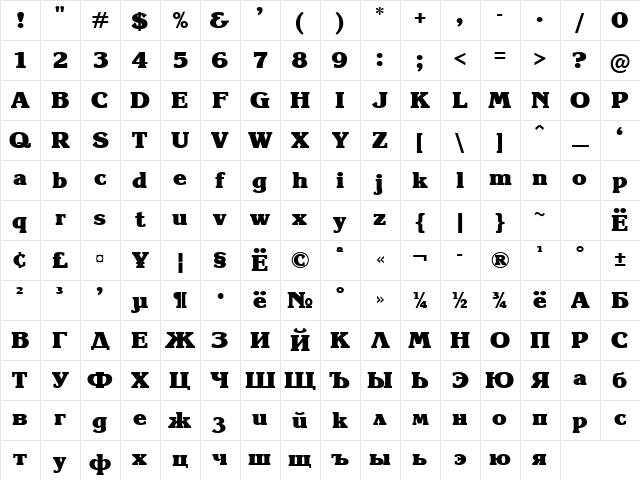
Complete Karelia Extra Bold glyph index. Displaying only characters natively supported by Karelia Extra Bold font.
Karelia Extra is a composed and adaptable typeface that performs quietly and consistently across a wide range of design contexts. Its bold stroke weight gives it real presence on the page.